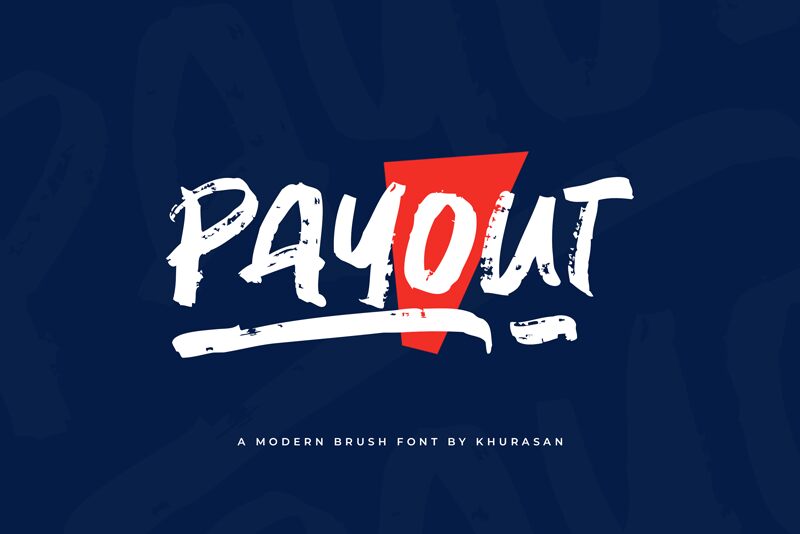
Payout font family by Khurasan™ is an energetic duo with two distinctive font styles to mix and match in your artworks. The font is bound to be an immediate eye-catcher due to its dynamic, expressive nature. Its modern brush style brings along a fresh, bold expression that captures the viewer’s attention instantly. Intentionally imperfect and boasting jagged edges, the font makes a great alternative to most suppressed, organized display fonts available online.
Use it in bold advertising posters, digital marketing campaigns, pop culture magazines, or even music album covers and event invitations. Designers can download the font family regularly for artistic branding, websites, social media images, or apparel.